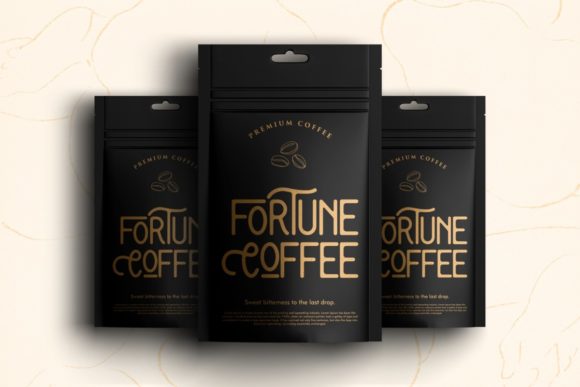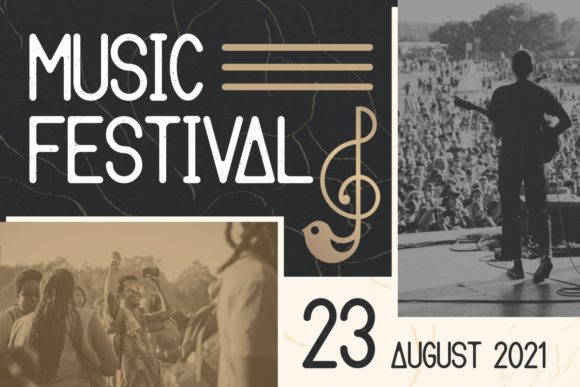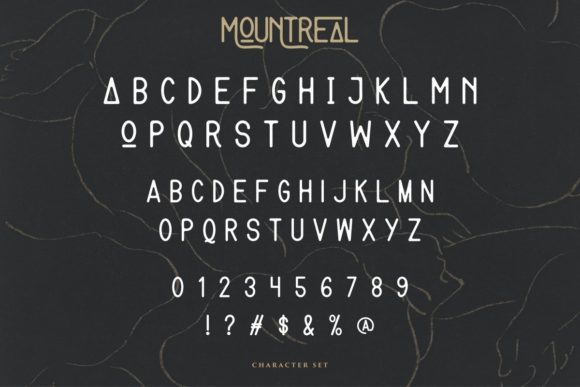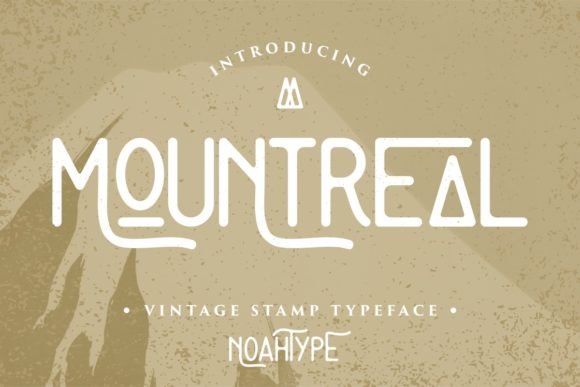
Introduction to Mountreal Font
Mountreal is a classic display font with an awesome style.
The font was inspired by vintage classic lettering It has a unique style that will bring a special effect to your designs.
Key Features of Mountreal Font